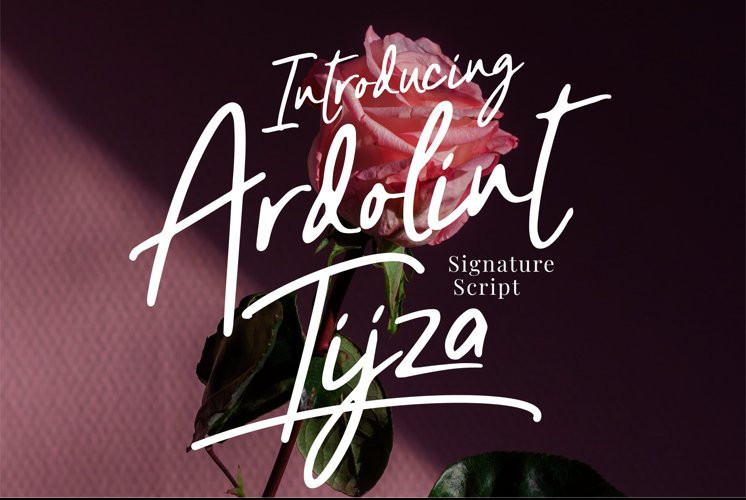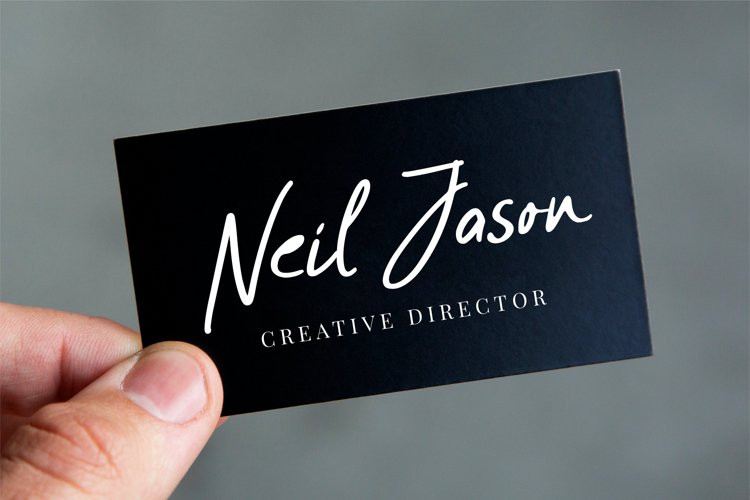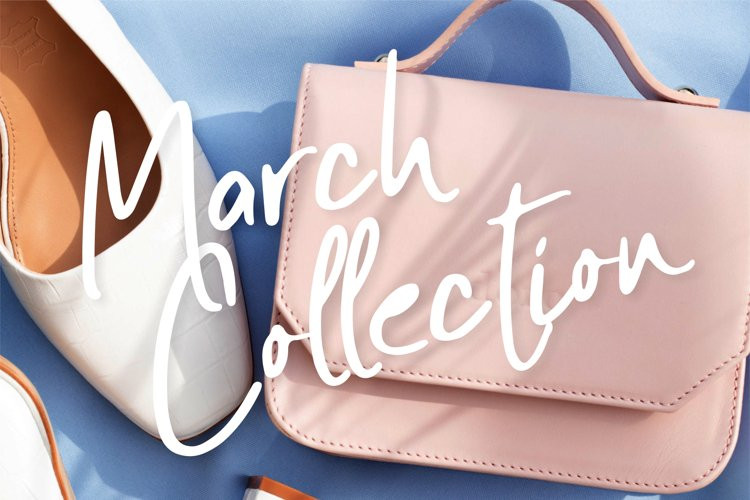
Ardolint Tijza Font
Ardolint Tijza FontArdolint Tijza is Signature writing relaxed & natural flow. this signature font is perfect for weddings, watermarks, branding, business cards, product logos, social media posts, advertisements, product packaging, product designs, labels, photography, watermarks, invitations, stationery, and any project that requires a sense of handwritten signature. etc.